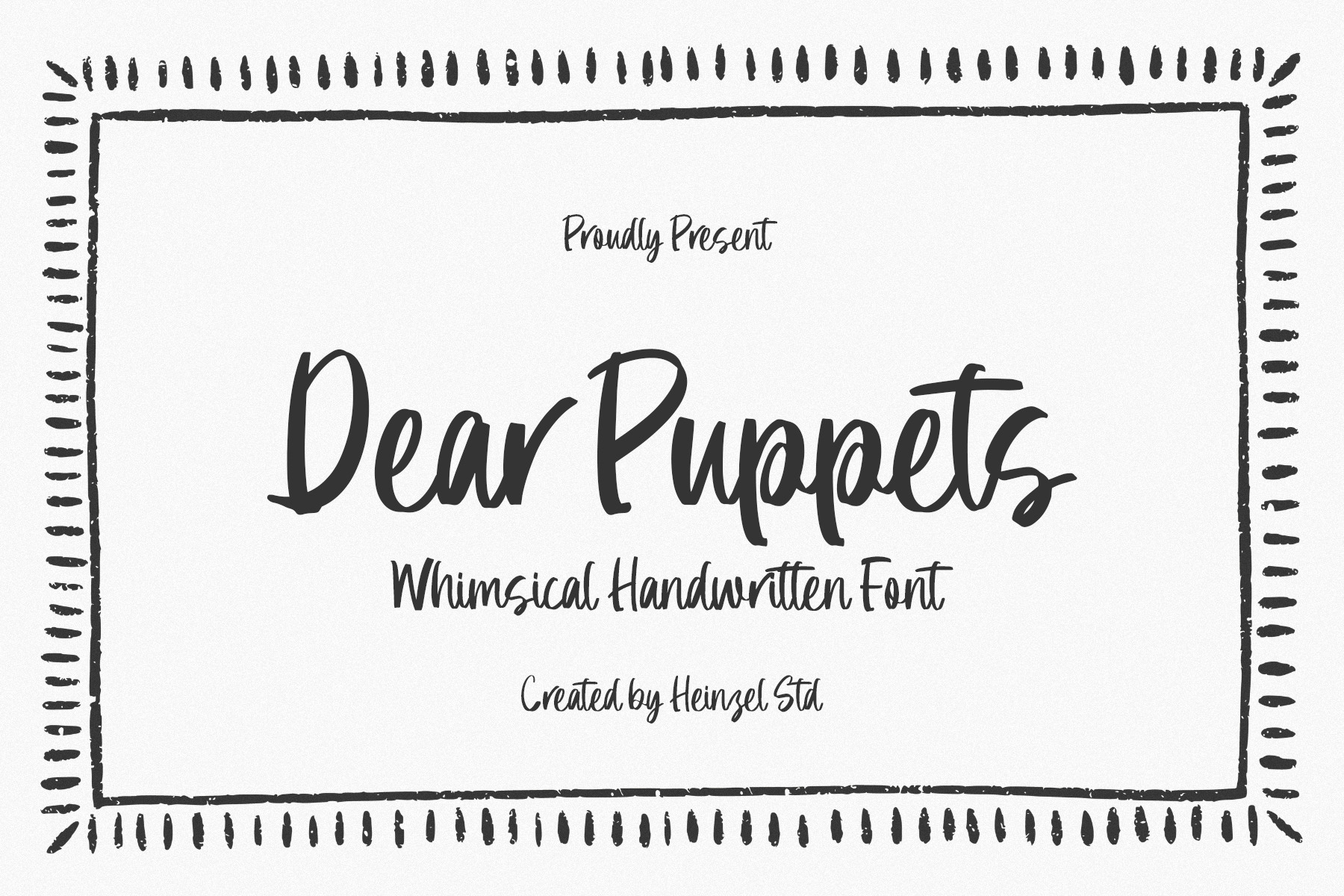
Dear Puppets Whimsical Font
Dear Puppets – Whimsical Handwritten Font
Dear Puppets is a playful handwritten font designed with a charming and whimsical personality. Featuring natural brush-inspired strokes and an authentic hand-drawn feel, this font brings warmth, creativity, and fun into every design project. Its casual lettering style makes it perfect for children’s branding, playful logos, greeting cards, social media graphics, packaging, posters, invitations, quotes, and creative craft projects.
With its smooth curves and expressive handwritten appearance, Dear Puppets delivers a friendly and approachable aesthetic while still maintaining excellent readability. The font works beautifully for both digital and print designs, making it a versatile addition to your typography collection. Whether you are creating cheerful branding, artistic merchandise, or modern handmade designs, Dear Puppets adds a unique handcrafted touch that stands out effortlessly.
Perfect for designers, crafters, content creators, and creative entrepreneurs looking for a fun handwritten font with personality and charm.